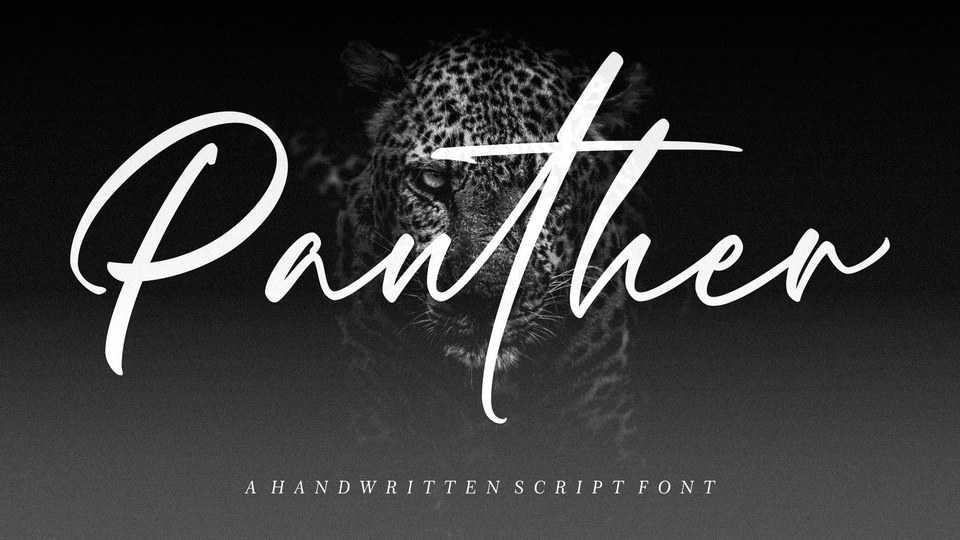
Download Panther font, a cool and stylish handwritten script, useful for creating beautiful hand-crafted signature logos, badges, social media posts, and more. Panther is affordable, personal, and can be easily used in your designs.
Designer: Redy Studio